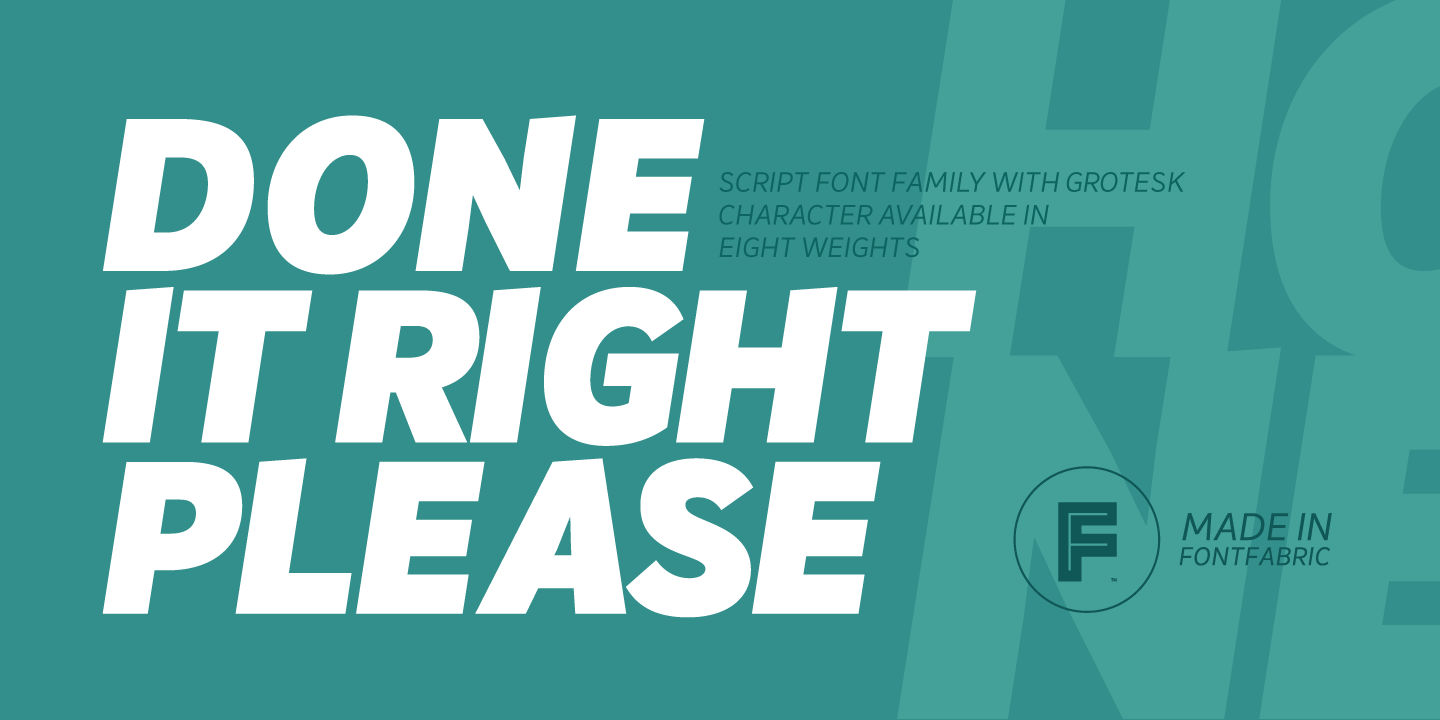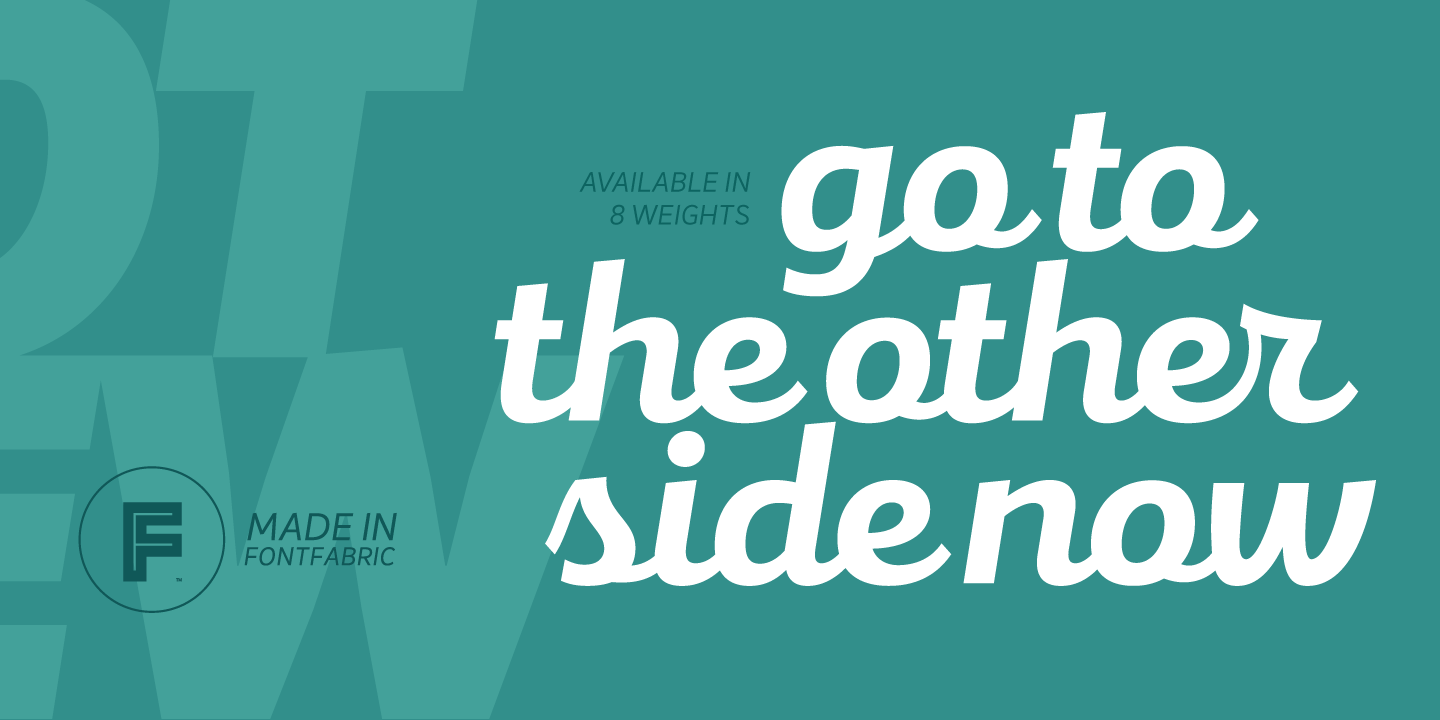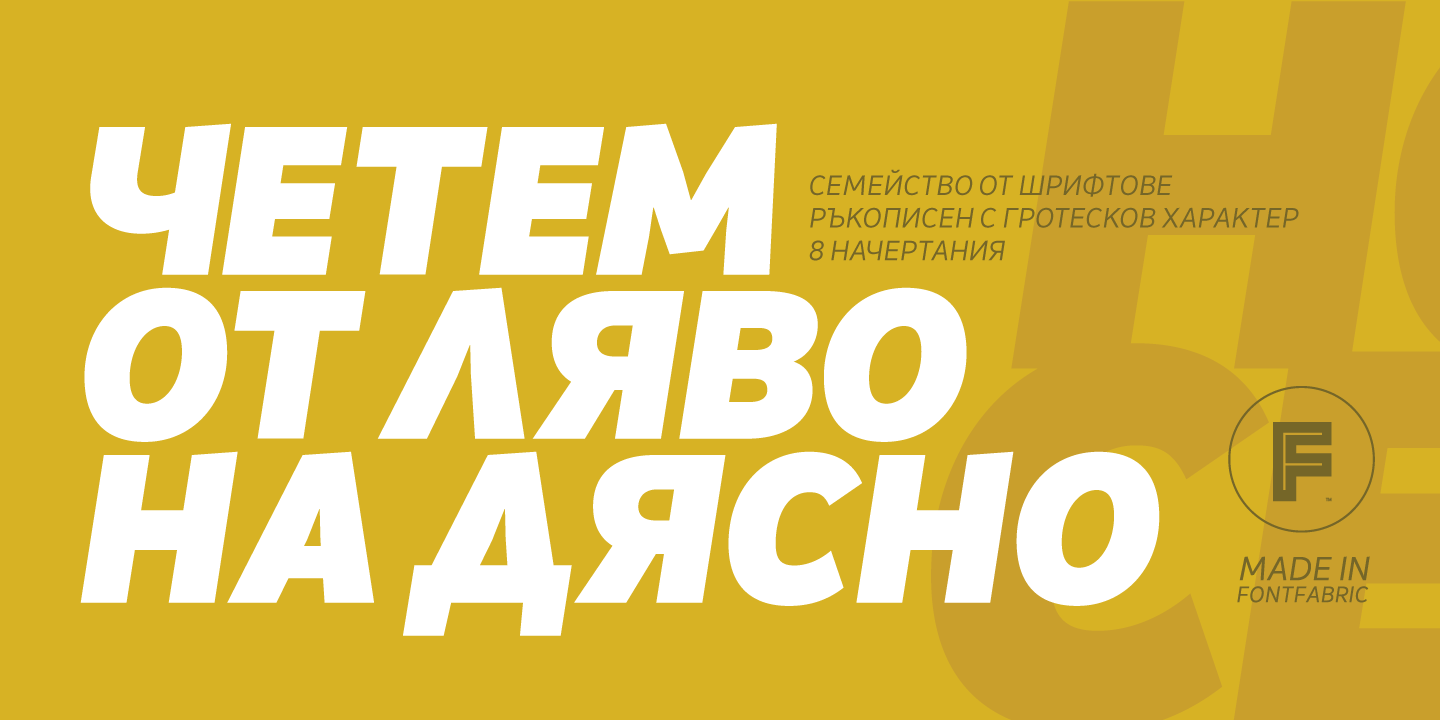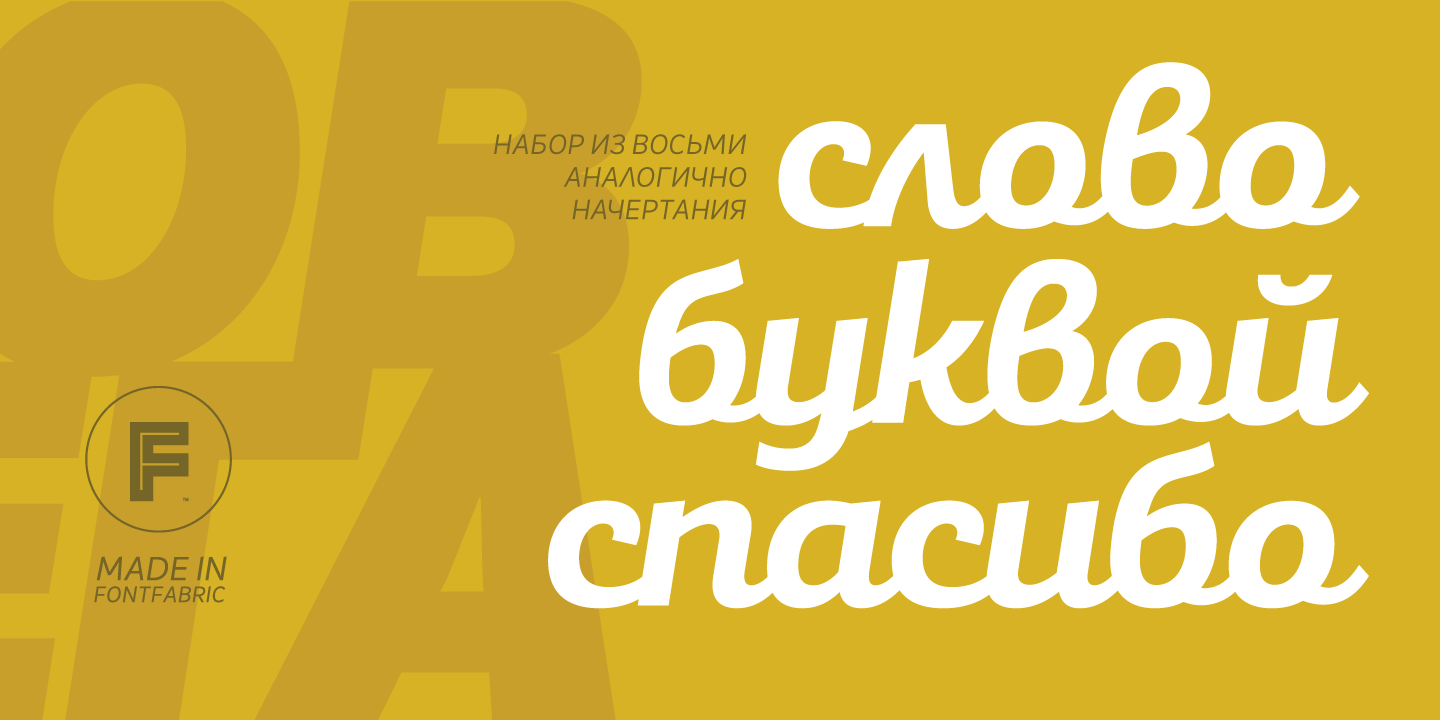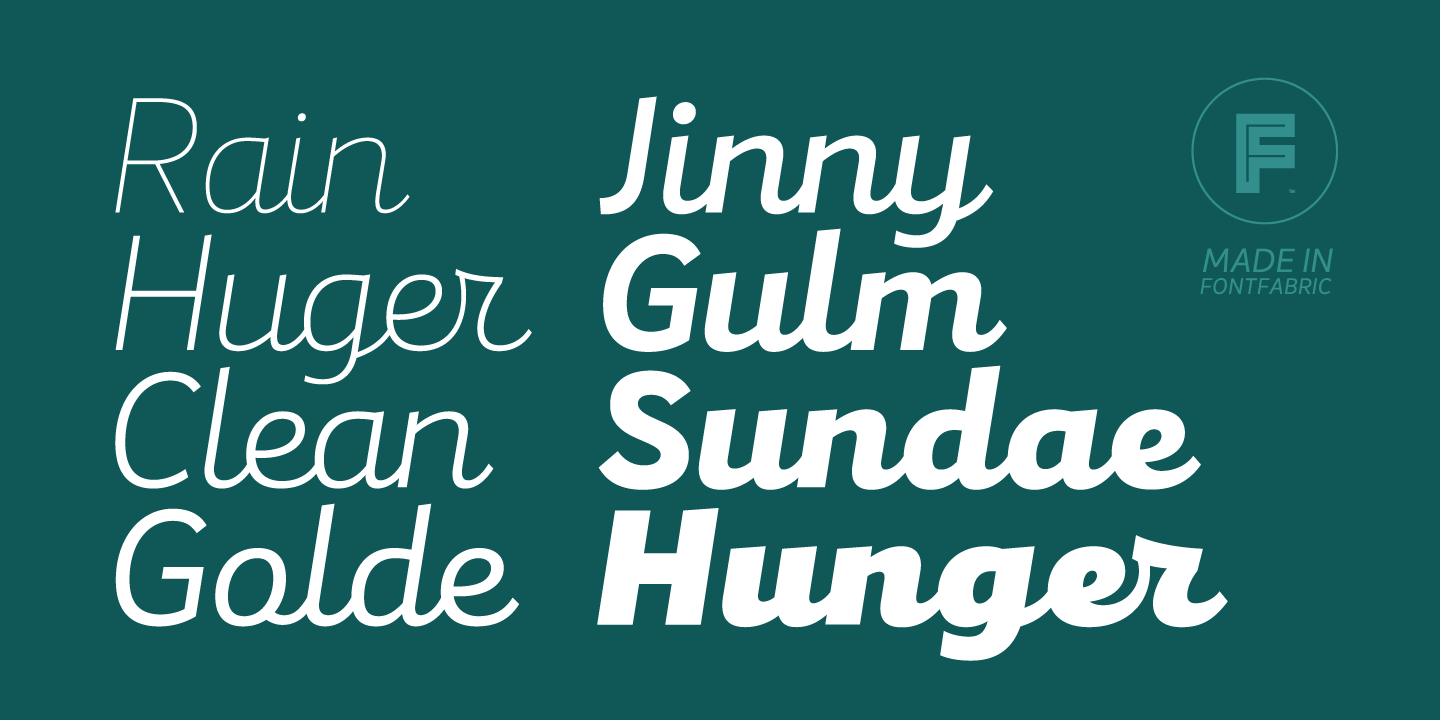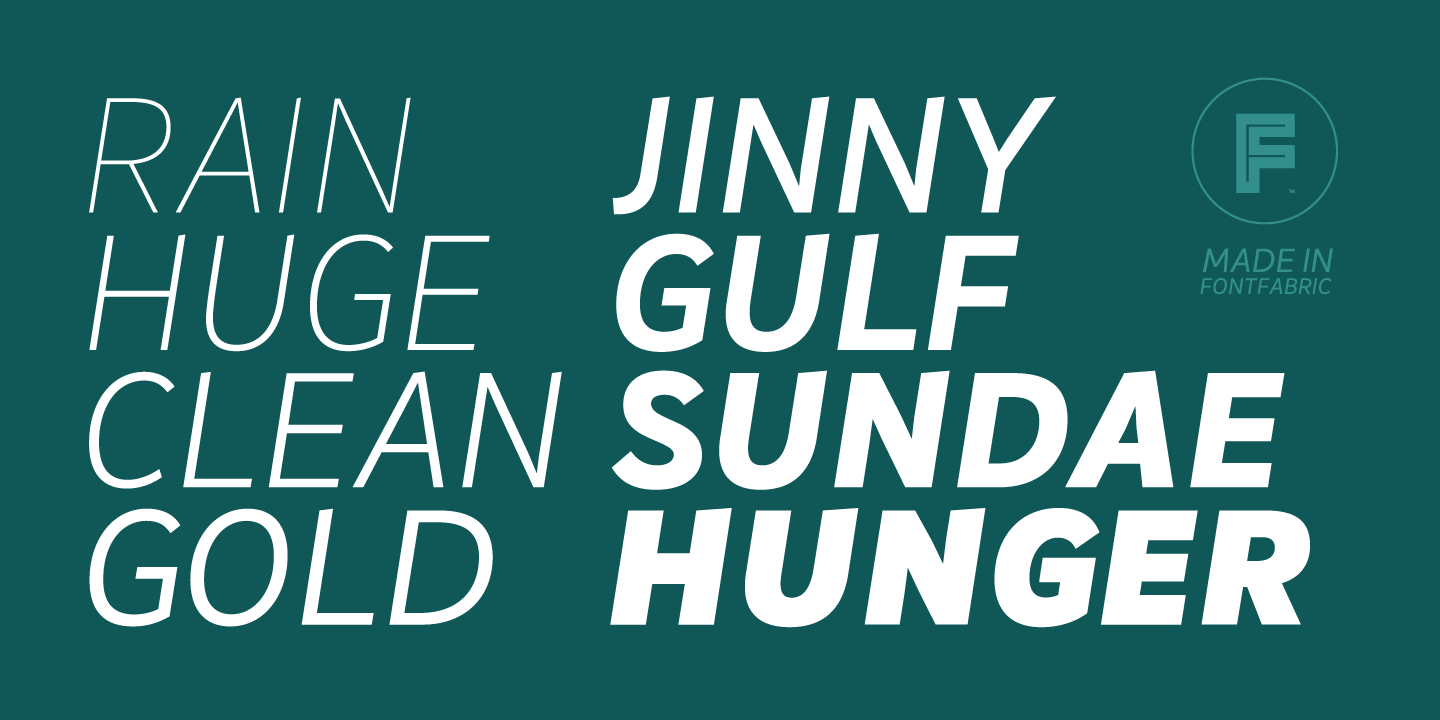
Mixa
Font Family by Fontfabric
Mixa was designed by Ani Petrova and stands out by blending a neo-grotesque sans-serif structure with a subtle, slanted script hidden in the lowercase. This clever duality offers uniquely harmonious typography—delivering a clean, all-caps look for clarity, while revealing expressive, handwritten personality in mixed-case or at larger sizes. Mixa surprises with character, making it both refined and full of personality.
Mixa is a Sans-Serif typeface designed for branding, headlines, packaging, editorial design, and web UI. Its unique dual personality—a crisp all-caps sans that transforms into a smooth, handwritten script in lowercase—makes it an excellent choice for designers and brands seeking a friendly yet refined tone with extra typographic depth.